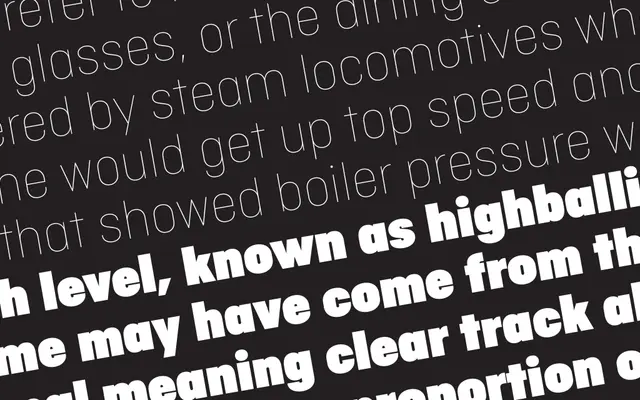
Ciutadella Display
A display-specific extension of the Ciutadella family, stretching from Thin to UltraBlack across 12 styles for large-scale use.
Designed as the extreme counterpart to the original Ciutadella family, this display variant pushes weights to their limits in both directions. Six weights from Thin to UltraBlack each come with a matching italic, yielding 12 styles optimised for headlines and poster work. It integrates with Ciutadella, Ciutadella Rounded and Ciutadella Slab to form a broad type system.
Ciutadella Display follows the geometric humanist sans tradition of its parent family, pushed to extreme weight ranges for display use. The forms are clean and structured, typical of a geometric sans designed for large-size application.